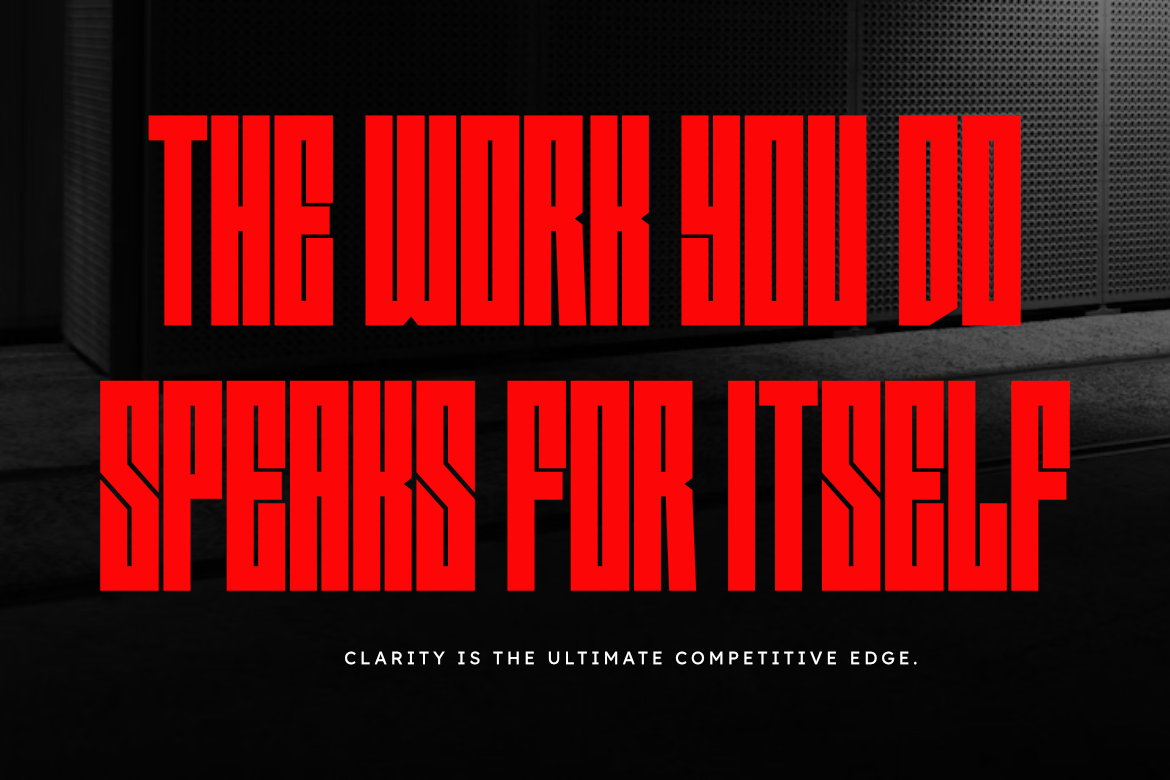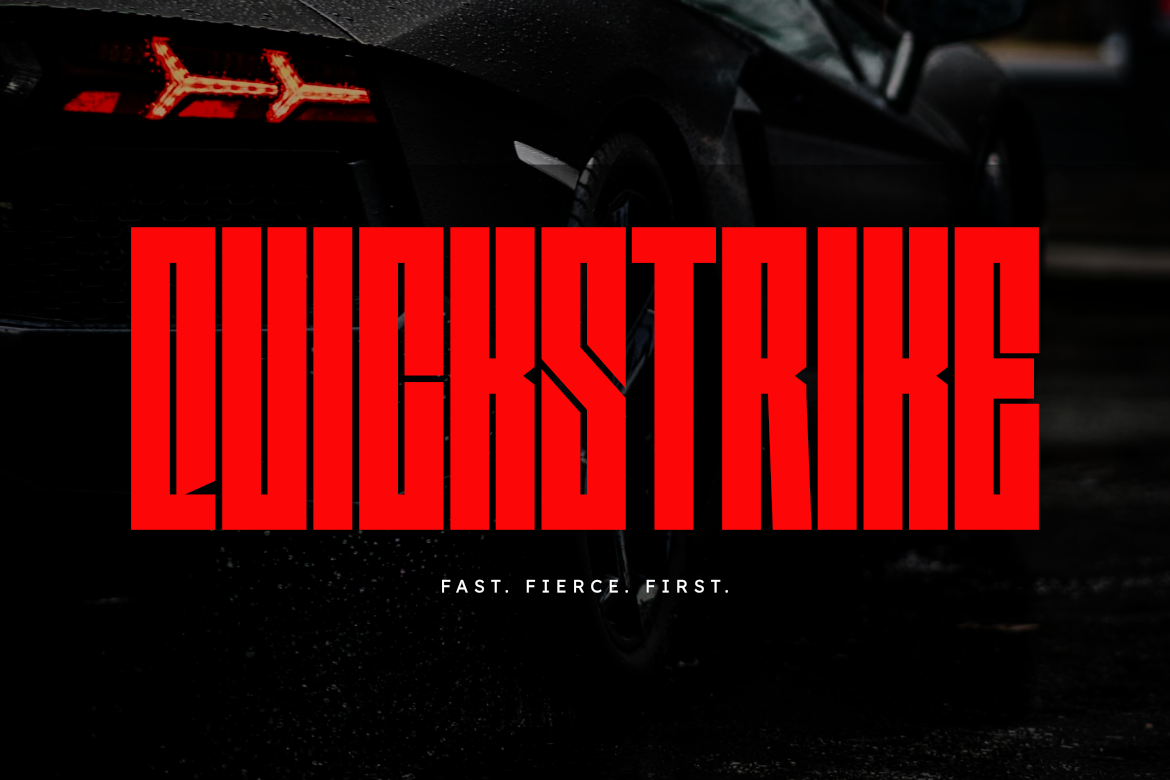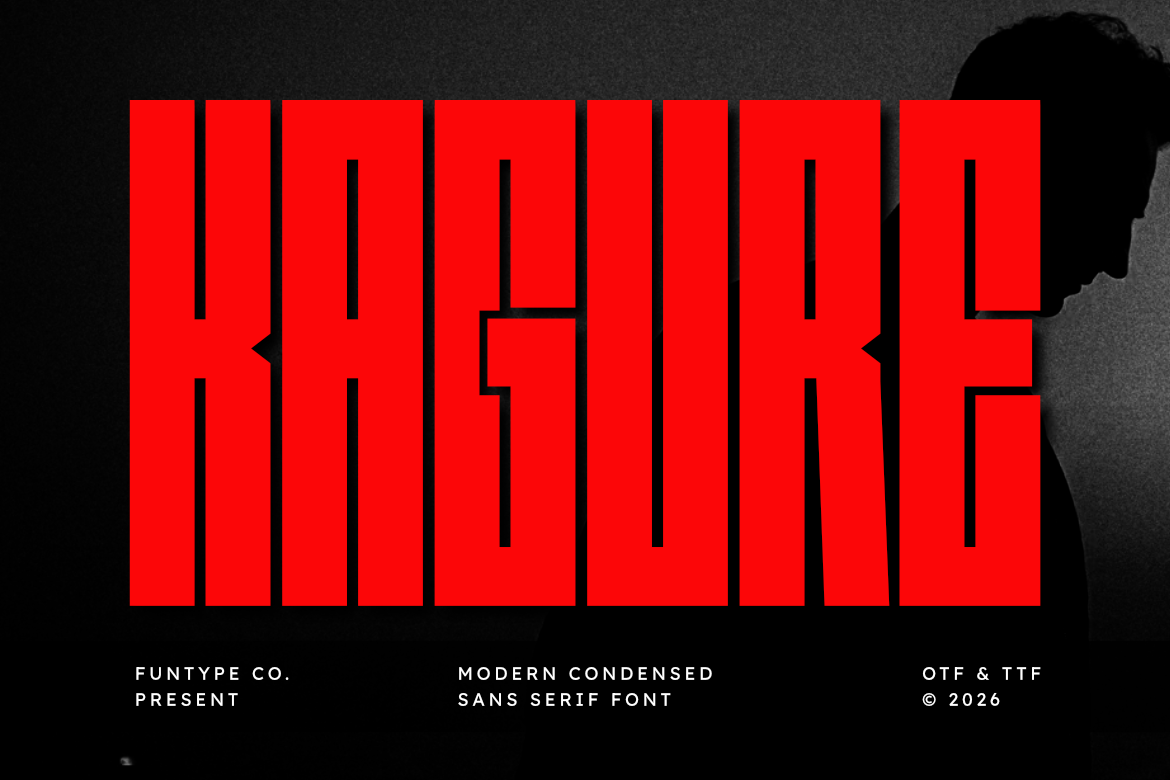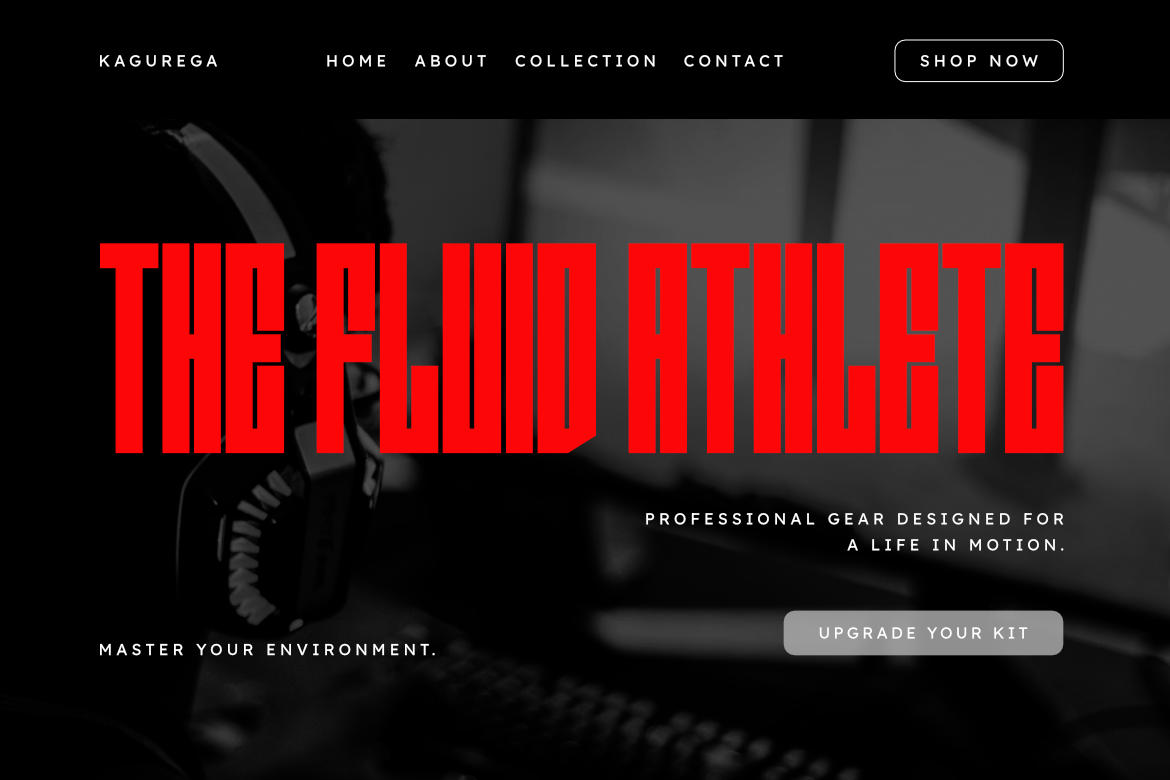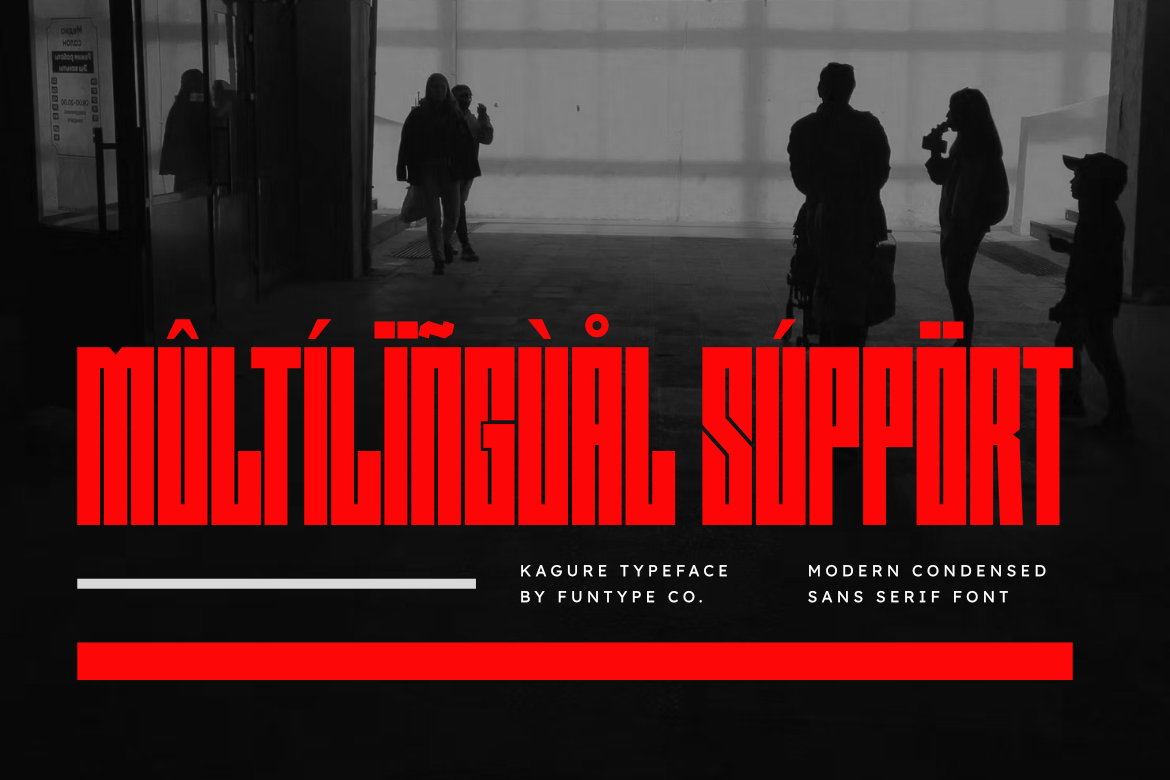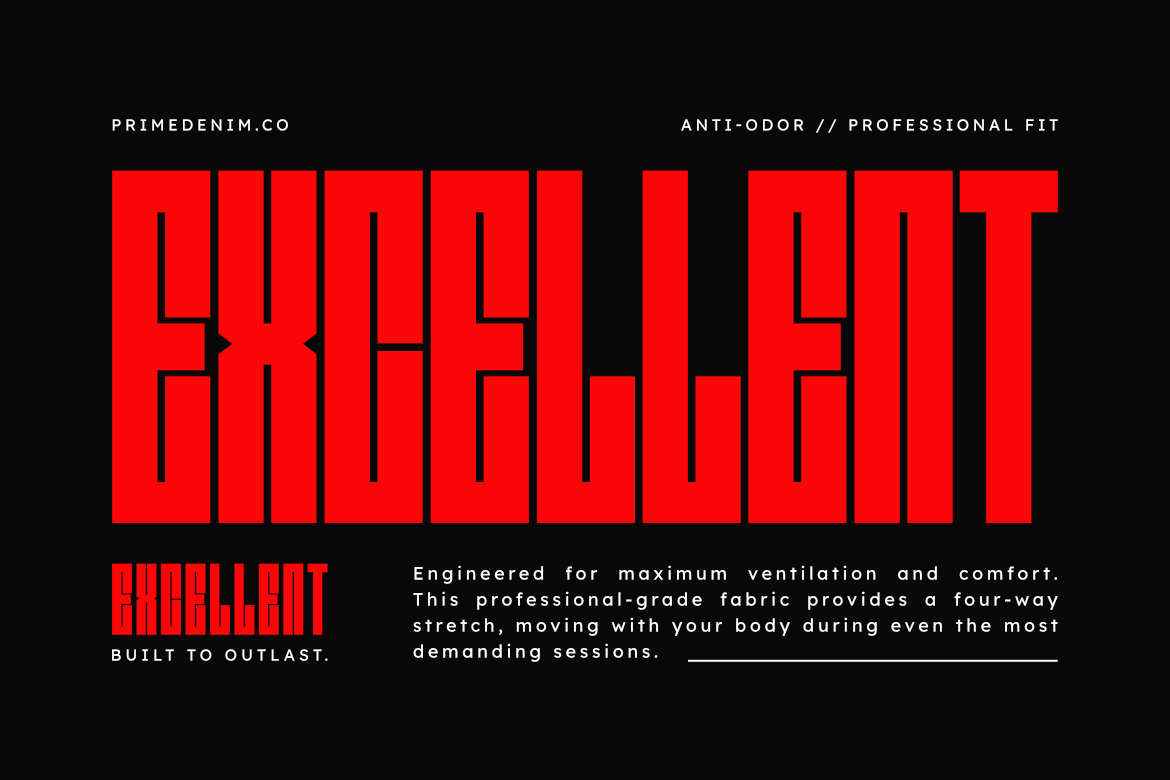
Kagure
Kagure is a sophisticated and powerful modern condensed sans serif font, thoughtfully designed to capture the essence of vertical impact and contemporary storytelling. With its tall, ultra-compressed structure and clean geometric lines, Kagure offers a professional aesthetic that brings a touch of commanding presence to any creative project.
This font is the ideal choice for designers looking to add a professional yet high-impact touch to their work. Whether you are crafting a striking cinematic poster, a sleek technology brand identity, or bold editorial layouts, Kagure provides a seamless blend of modern edge and digital authority.
Main Features:
- Modern Condensed Design: Optimized for a bold, space-efficient, and professional look.
- Clean Vertical Lines: Meticulously crafted for superior visibility and a high-end feel.
- Commanding Presence: Perfect for headlines, posters, and large-scale digital displays.
- Professional Aesthetic: High-end finish for modern tech, sports, and industrial branding.
Best Used For: Cinematic movie posters, sports branding, gaming and e-sports graphics, automotive design, high-impact web headers, industrial packaging, and modern corporate identity.